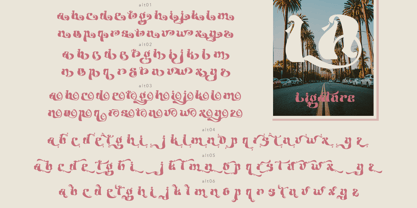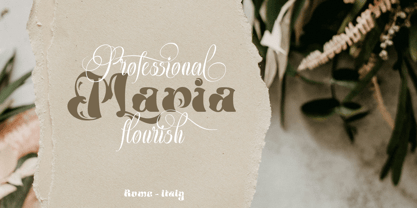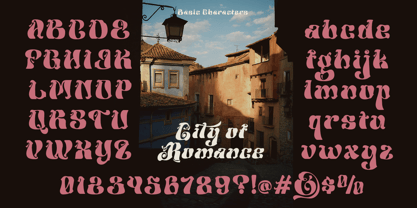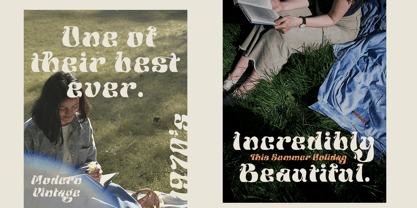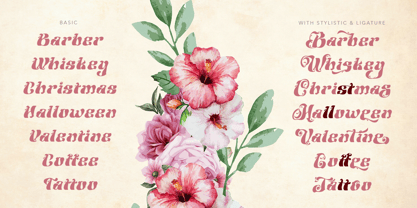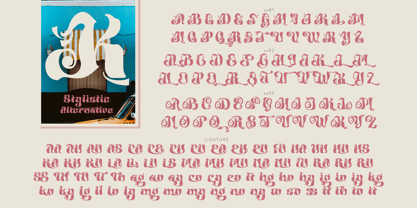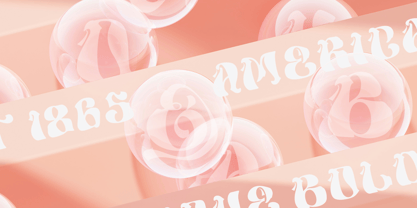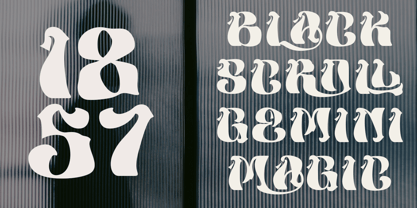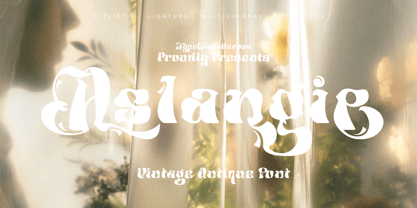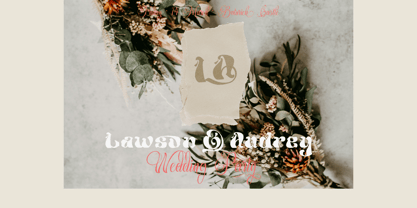
Aslangie
von TypeClassHeroes
Die Schriftfamilie Aslangie wurde von Suandana ipandemade entworfen und von TypeClassHeroes veröffentlicht. Aslangie enthält 2 Stile und Familienpaketoptionen. Mehr über diese Familie
Introducing, Aslangie font is a vintage antique style font with bold characters and unique curved ornamentation. It conveys a traditional, authentic, and distinctive feel. The bold curves and swash details at the beginning and end of the characters create a unique, bold, and eye-catching feel on packaging, making it suitable for logos, branding, and food packaging. With its striking and recognizable letterforms, this font is ideal for packaging traditional snacks, small business products, regional souvenirs, and various culinary products that want to convey a strong and memorable identity. Its decorative character immediately evokes the nuances of local culture and crafts.
Designer: Suandana ipandemade
Foundry: TypeClassHeroes